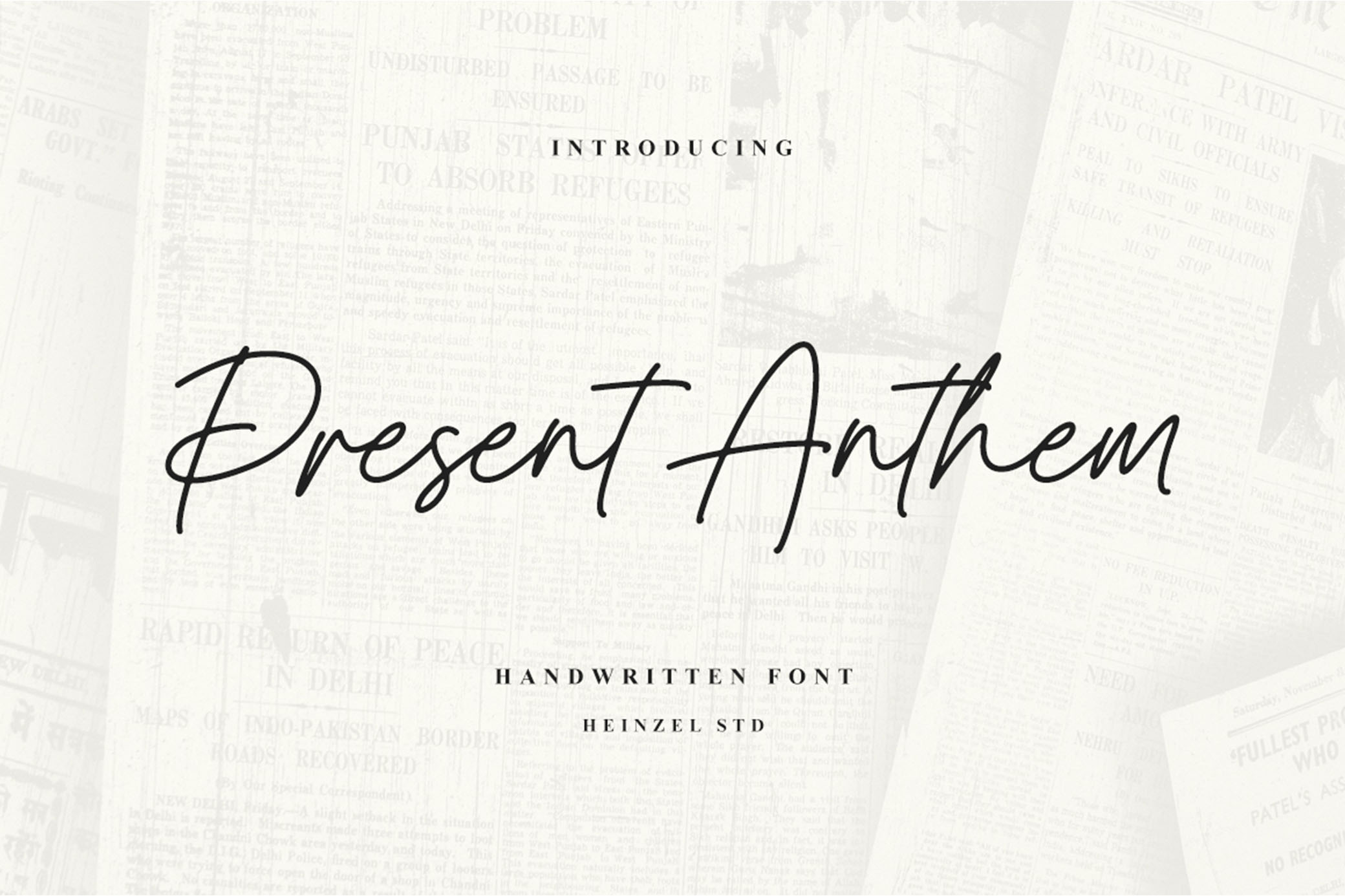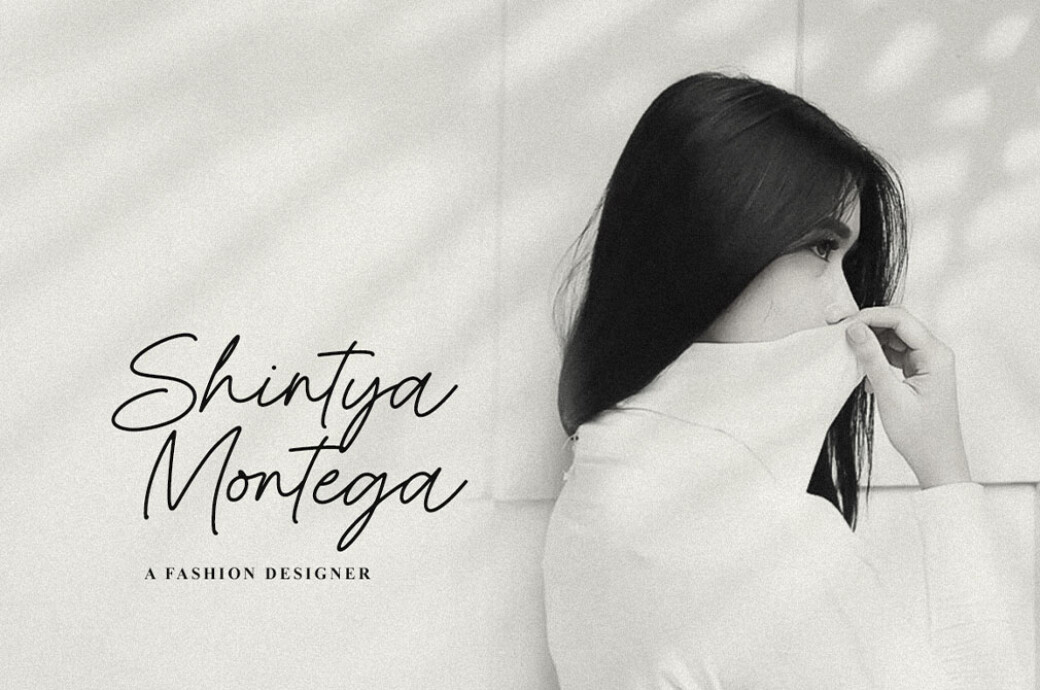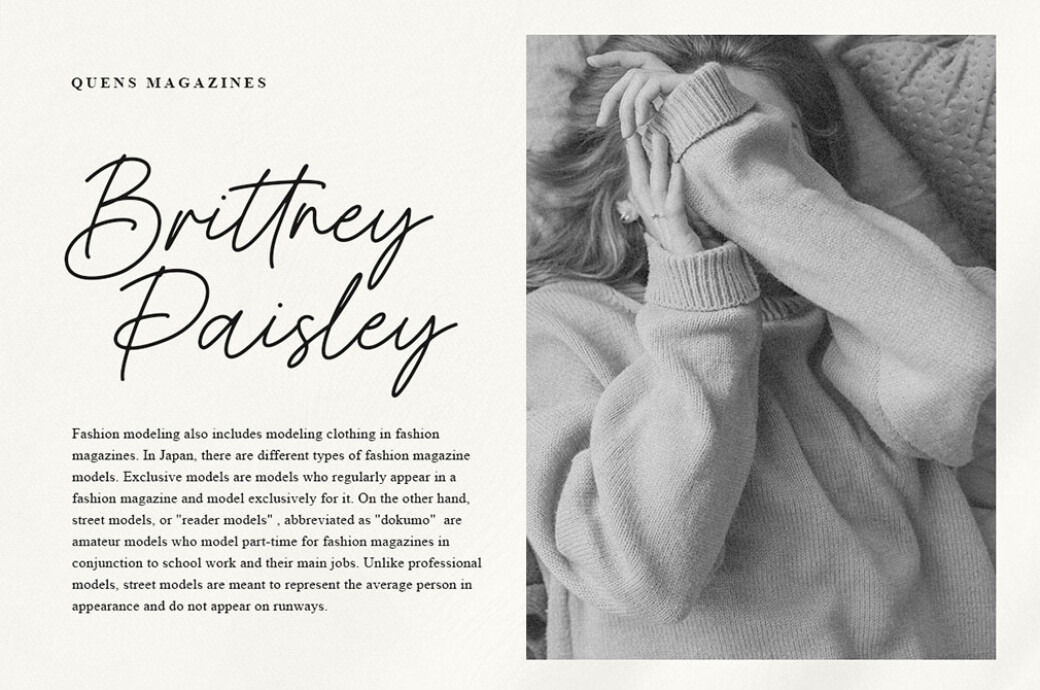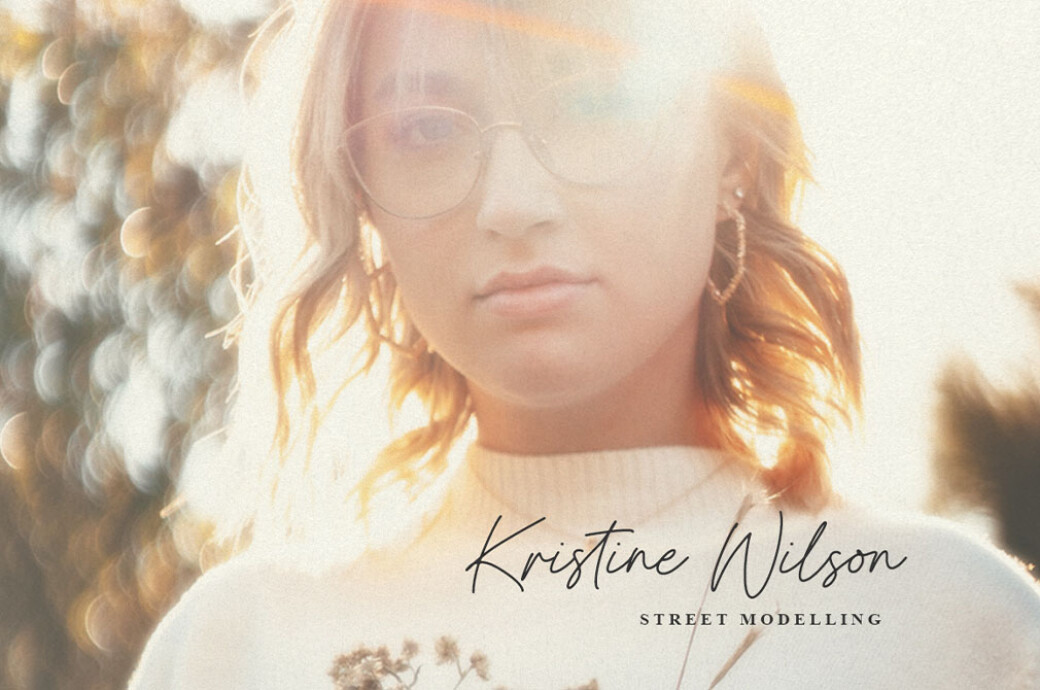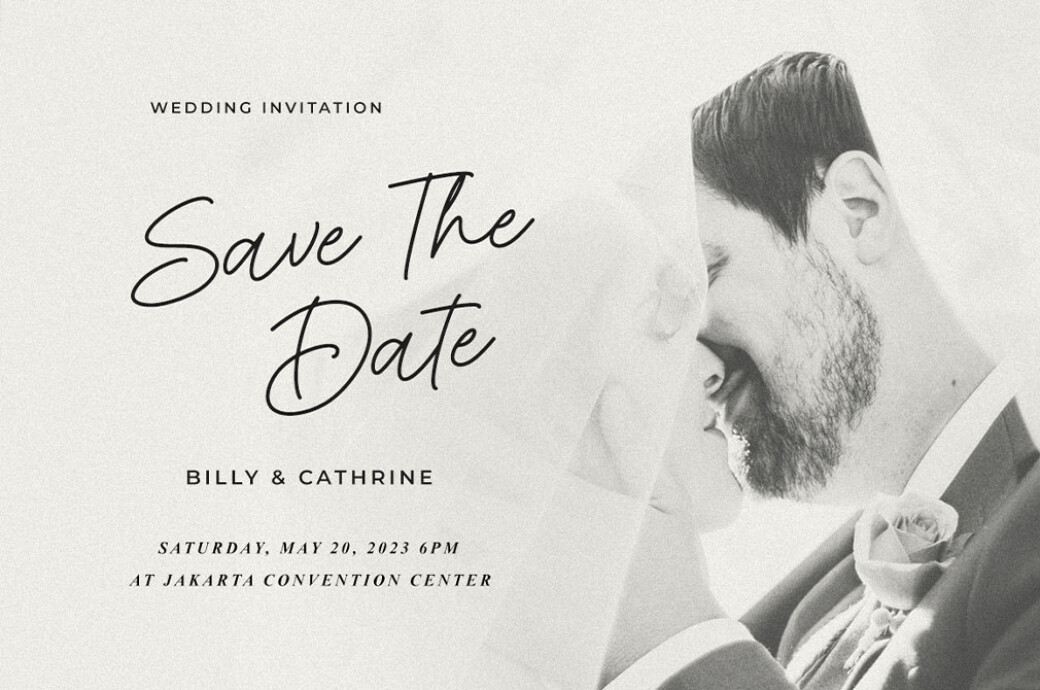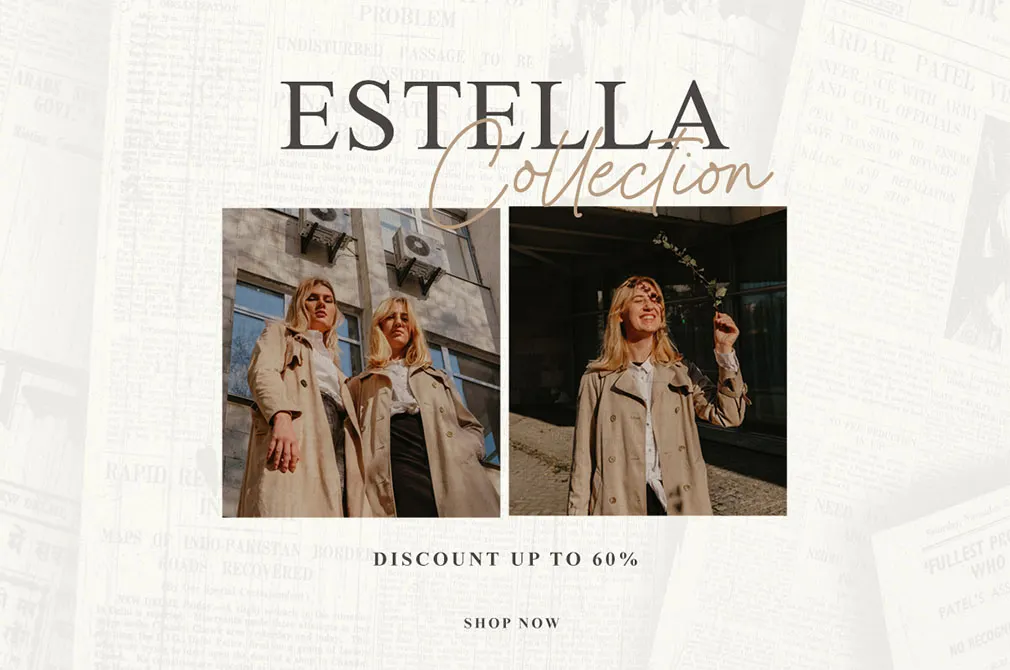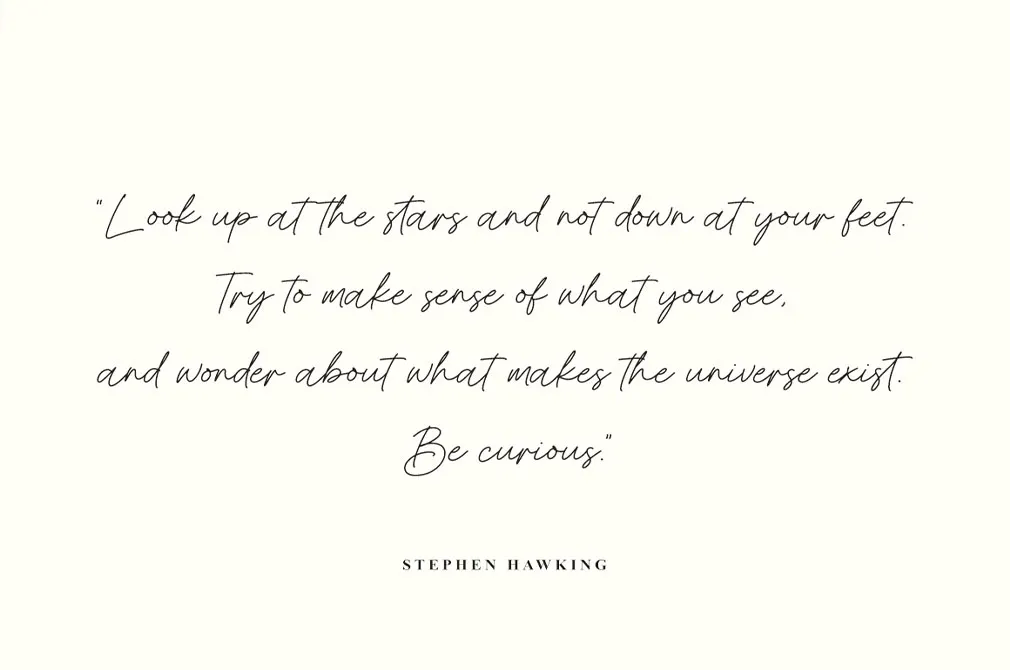
Present Anthem — Handwritten Font
A pinch of elegance, a sprinkle of sophistication, and a big dash of creativity resulted in Present Anthem — a beautiful handwritten font that will charge your project with a personal touch.Each stroke of this font whispers softness and tenderness, so if you’re working on beauty product packaging, fashion posters or any other artwork that needs a chic vibe, that’s the tool you need! It comes with upper and lowercase letters, numerals, punctuation marks and ligatures. Moreover, the font offers multilingual support, so you can easily deliver your message!